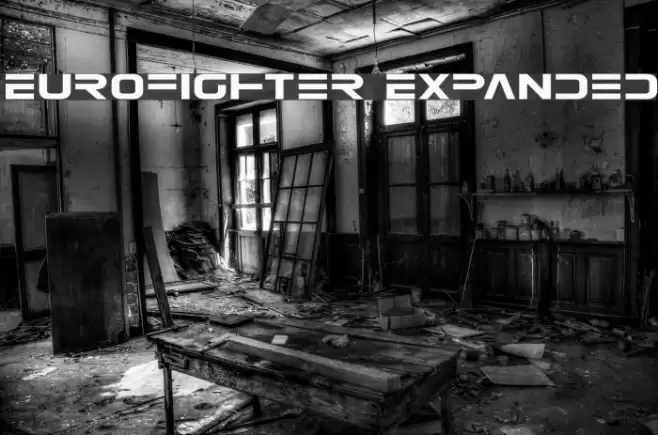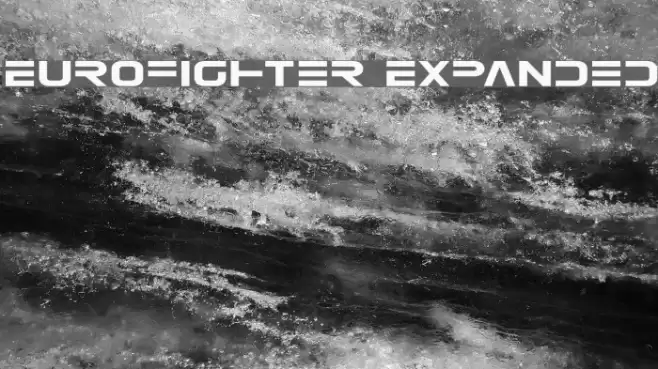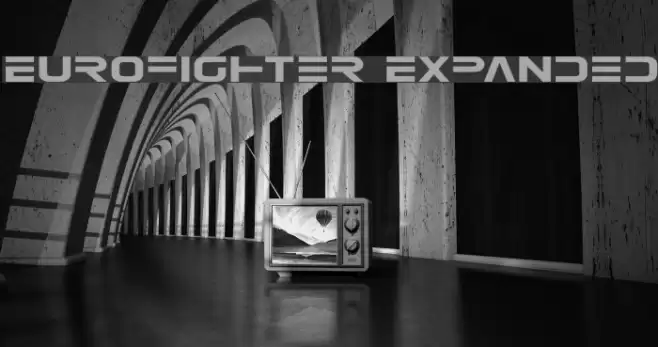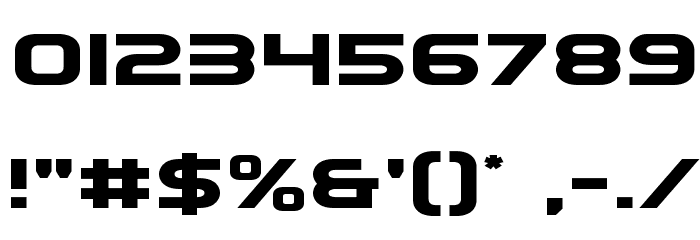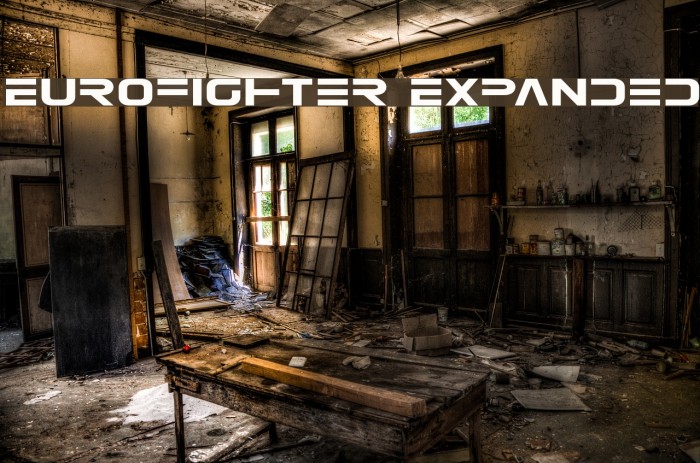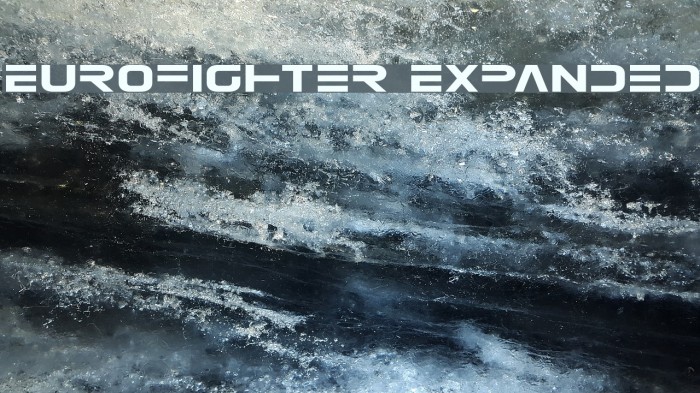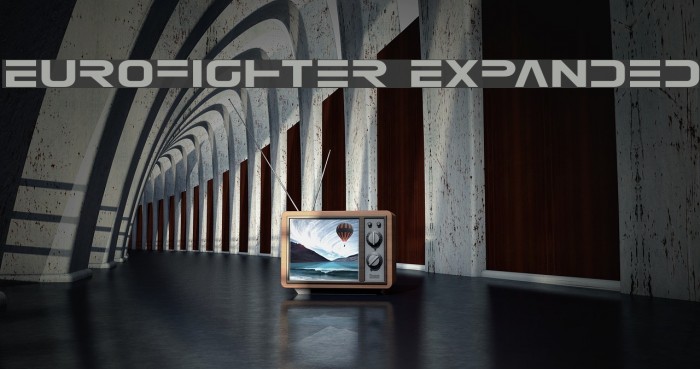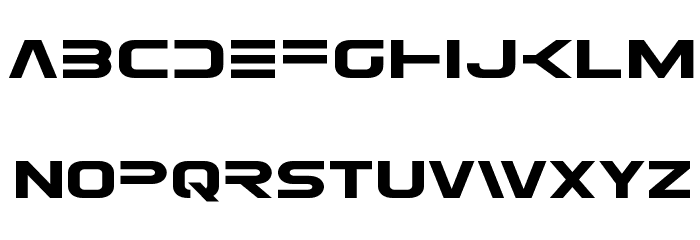
Eurofighter Expanded Font
Eurofighter Expanded Description
This font exhibits a bold and futuristic design, characterized by its geometric and angular letterforms. The uppercase letters are distinct with sharp edges and a uniform stroke width, giving it a strong and impactful presence. The lowercase letters maintain the same angular style, ensuring consistency throughout the typeface. Numerals are designed with a similar boldness, making them easily legible and visually striking. Special characters are crafted to match the overall aesthetic, providing a cohesive look across all glyphs. The font's expanded width adds to its commanding appearance, making it suitable for attention-grabbing headlines and modern design projects.
A bold, futuristic font with geometric, angular letterforms and expanded width from Uncategorized fonts.
- Proposed Projects: Ideal for technology branding, sci-fi themed designs, video game titles, and modern advertising.